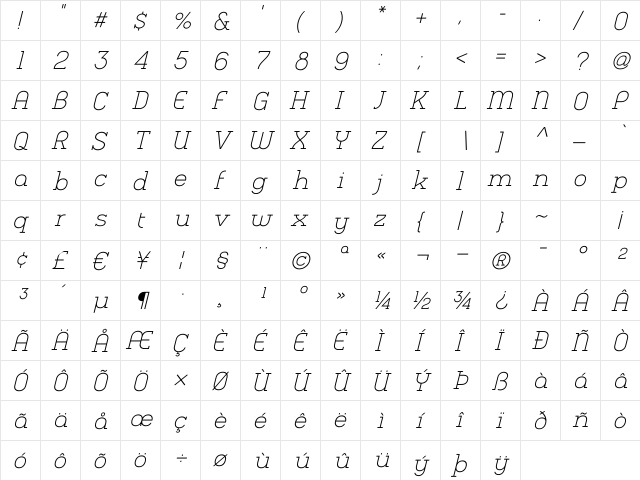
Charifa SerifThin Oblique Regular Font Preview
Design Context for Charifa SerifThin Oblique Typeface
Charifa SerifThin Oblique brings classic typographic sensibility to the table — its serifs and measured letterforms reflect centuries of print heritage. The slanted form adds forward momentum and visual energy. The delicate stroke weight brings airiness and refinement to layouts.
Pro Tip: Set Charifa SerifThin Oblique at slightly larger body copy sizes than you would a regular-weight serif to compensate for its delicate stroke contrast.